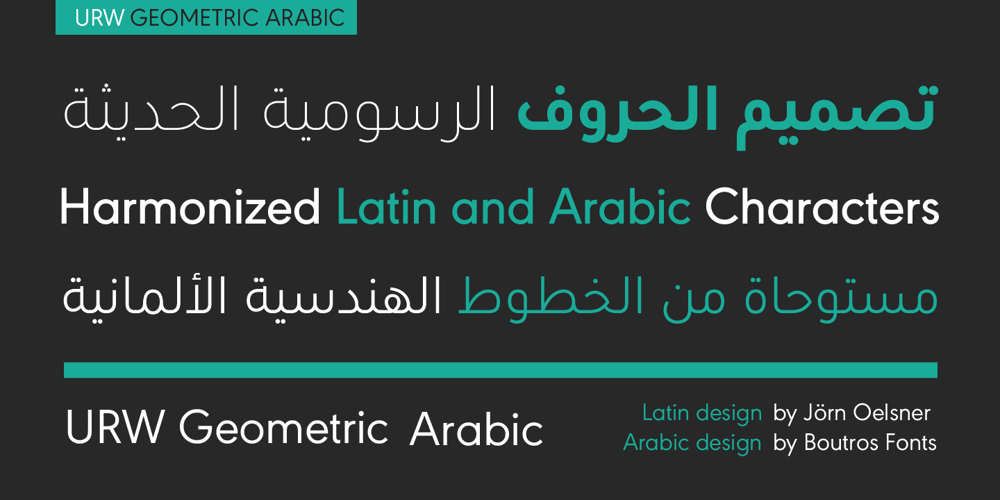
URW Geometric Arabic Font Family was designed by Jörn Oelsner and published by URW Type Foundry. URW Geometric Arabic contains 10 styles and family package options. URW Geometric is a sans serif typeface inspired by the German geometric typefaces of the 1920s but designed for modern usability. The character shapes have optimized proportions and an improved balance, the x-height is increased, ascenders and descenders are decreased. These design characteristics increase the usability and legibility tremendously. Accordingly to the URW Geometric, Boutros Fonts designed the URW Geometric Arabic. 10 weights, which harmonize perfectly with the Latin ones, were created – from Thin to Black.